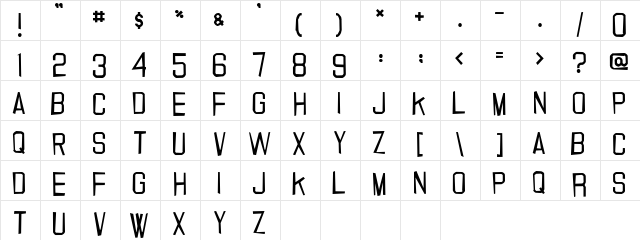
20.000 dollar bail Regular
Design Context for 20.000 dollar bail Typeface
20.000 dollar bail offers clean, dependable letterforms without strong stylistic allegiance, making it a practical choice for designers who need flexibility.
Pro Tip: Use 20.000 dollar bail in both headline and body roles to test its range before committing to a single application.